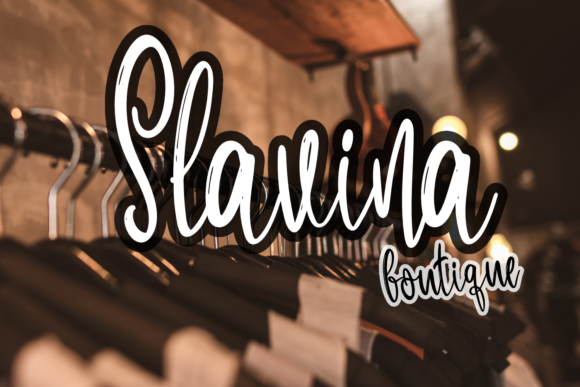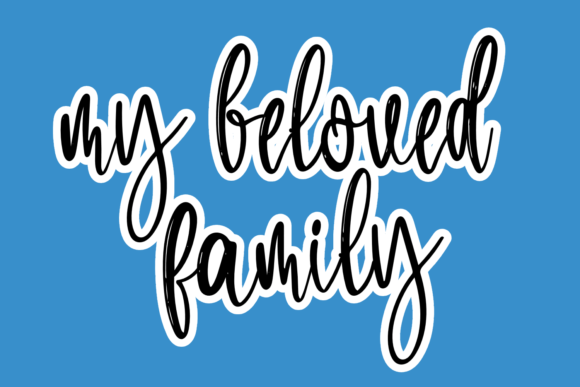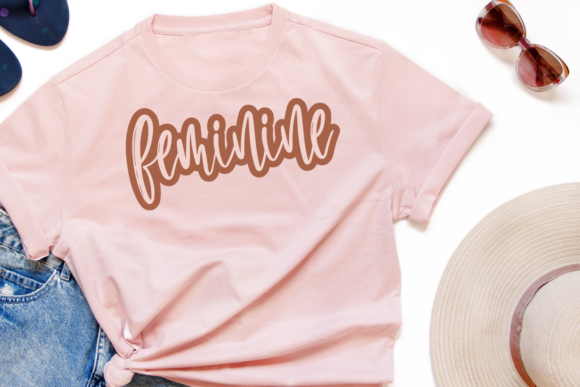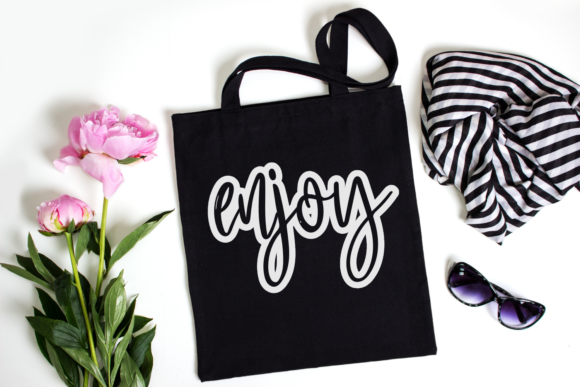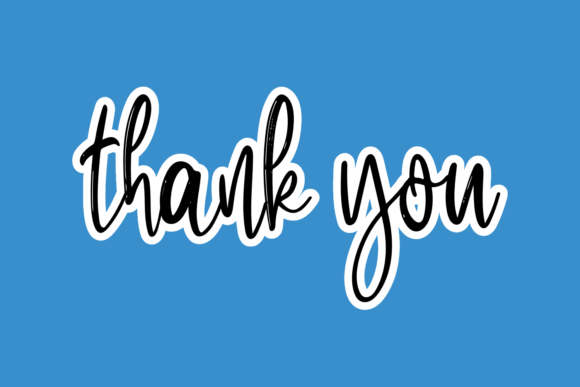
Blue Jeans Font
About Blue Jeans Font
Blue Jeans is a daring handwritten font that beautifully combines elegance with playfulness. With its rounded and chunkier than usual letters, this font will take your creation to the next level!